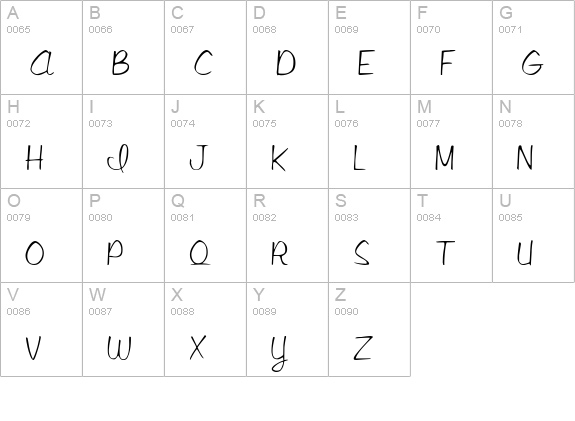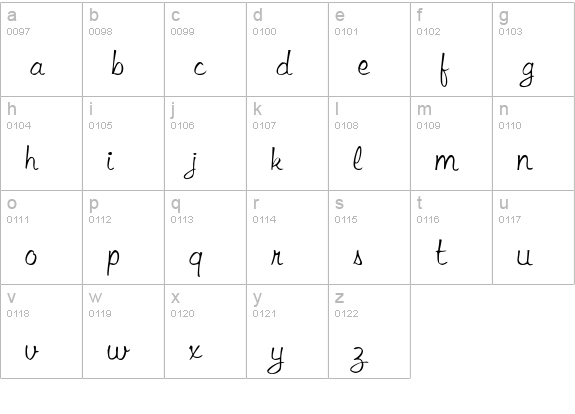
LibbyScript Font Details
Introducing LibbyScript font - a delightful and charming typeface that exudes elegance and sophistication. With its flowing and graceful letterforms, LibbyScript adds a touch of whimsy to any design project. This beautiful script font is perfect for invitations, greeting cards, branding, and more. The best part about LibbyScript font is that it is completely free to download. You can get your hands on this stunning typeface at FontsMarket.com and elevate your creations with its unique charm. Don't miss out on the opportunity to add a touch of elegance to your designs with LibbyScript font - download it today and let your creativity soar!